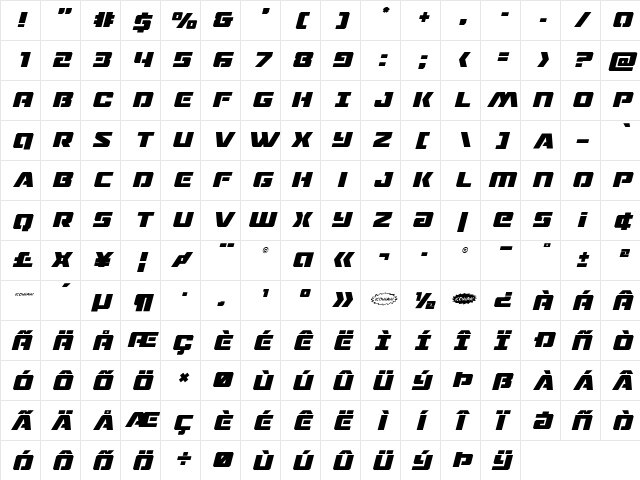
Drone Tracker Title Italic Italic
Design Context for Drone Tracker Title Italic Typeface
Drone Tracker Title Italic is a composed and adaptable typeface that performs quietly and consistently across a wide range of design contexts. The slanted form adds forward momentum and visual energy.
Pro Tip: Try Drone Tracker Title Italic for annotation and caption copy alongside an upright companion — the contrast in angle creates a dynamic but ordered typographic system.